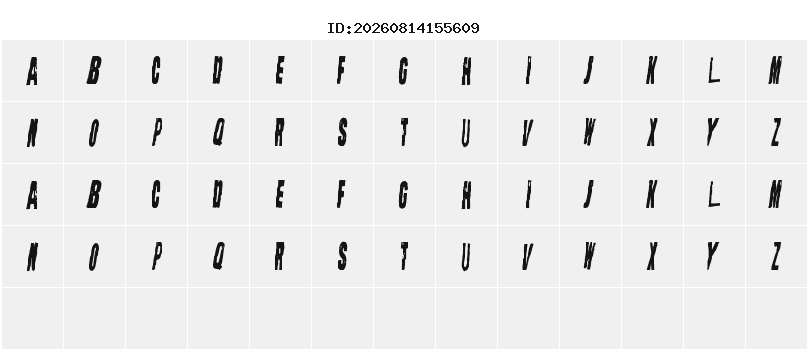
• Font Name: Straight Face
• Designer: Chris Hansen
About Straight Face.ttf
Straight Face.ttf is a modern, elegant sans-serif font designed for ultimate readability and visual harmony. Perfect for branding, headlines, web design, and print materials.